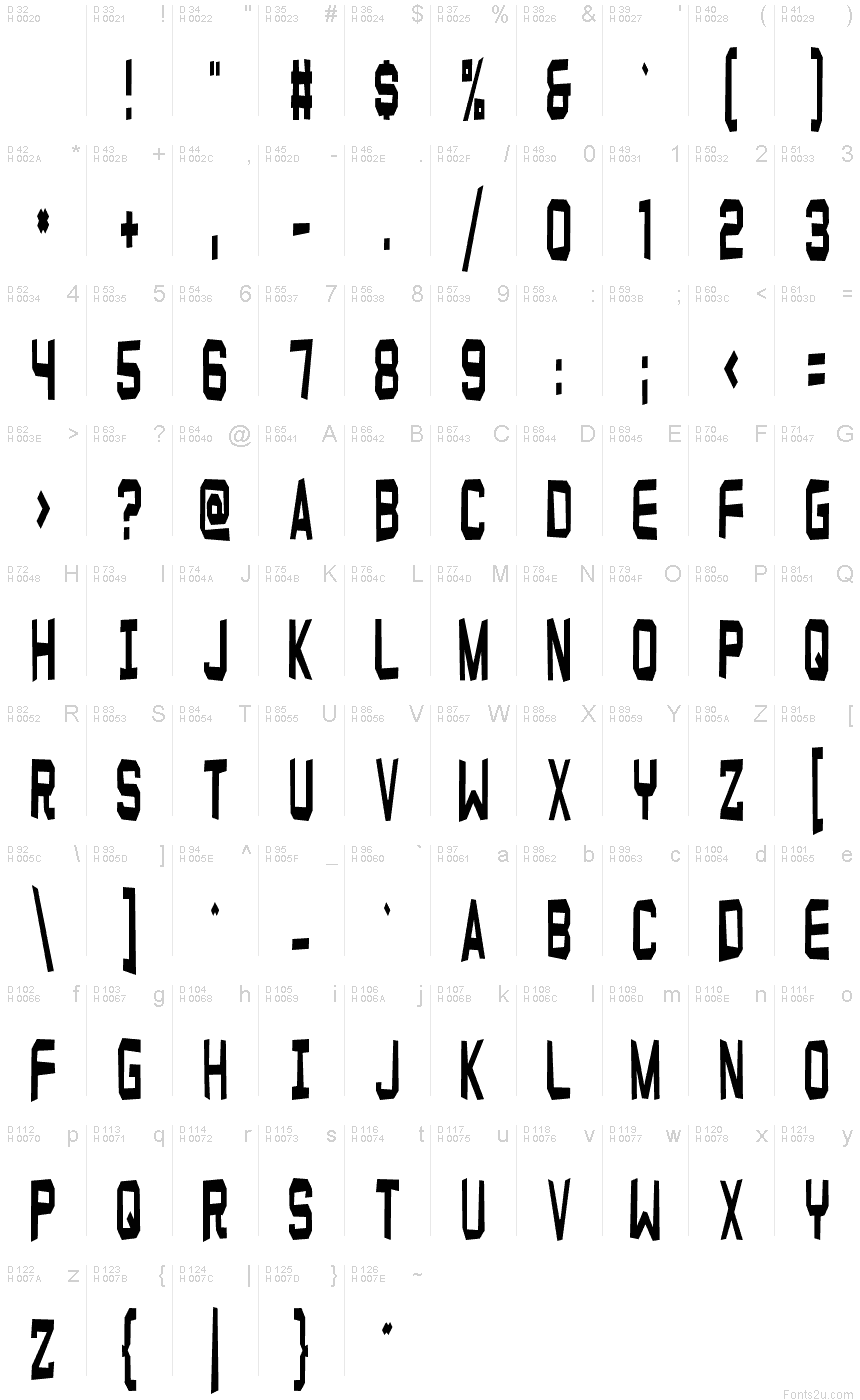
Funny farm hard
Funny Farm Hard font by Jakob Fischer is a free comic display typeface with a wonderfully unruly attitude. Its tall, narrow letters tilt and kink like hand-cut cardboard, giving every word a scrappy, energetic shove. The edges feel rough and inky rather than polished, so text looks loud and spontaneous, as if it’s been slapped onto a poster with a fat marker and zero hesitation.
Using Funny Farm Hard, your titles instantly grab attention for gig posters, YouTube thumbnails, skate or streetwear graphics, kids’ event flyers, zines, and bold packaging. The tight, vertical rhythm lets you stack words into punchy blocks without losing legibility. Let this free font handle the headline and pair it with a simple sans serif in smaller sizes to keep things readable while the chaos stays on top.